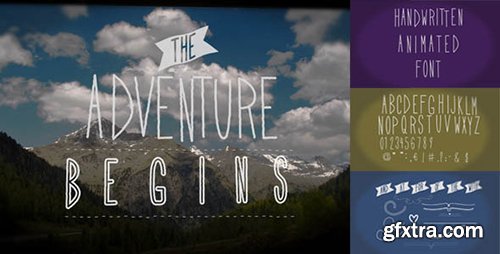
Create a beautiful message with the Handwritten Animated Font slide Show! This project contains an animated font. Universal controls plus individual character controls can make a character skewed, bold or outlined with just one click! Banners, ornaments, numbers and punctuation also included! You must use the English version of After Effects for this template.......